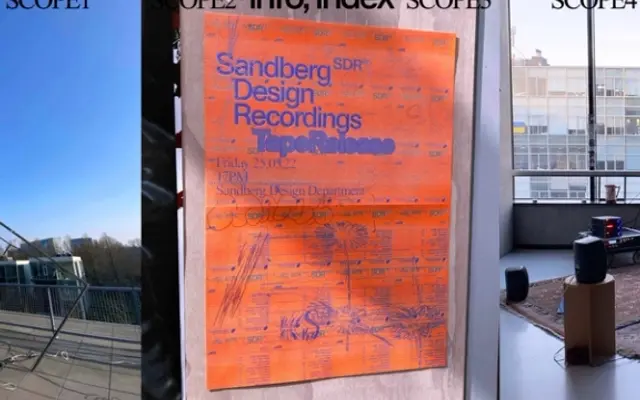
Formular
A geometric grotesque with 15 weights, italic cuts and a mono companion, covering Latin and Cyrillic across 72 languages.
Formular offers a broad weight range from ExtraLight to Ultra, each with a matching italic, suited to both text and display use. Alternate glyphs for 'a', '&' and '0' allow stylistic adjustment, and a dedicated monospaced variant extends the family into editorial and interface contexts. Latin and Cyrillic coverage across 72 languages makes it practical for multilingual European and Russian-language work.
Formular is a geometric-leaning grotesque sans-serif with a rational structure, alternate character options, and a companion monospaced variant, placing it firmly in the grotesque tradition.